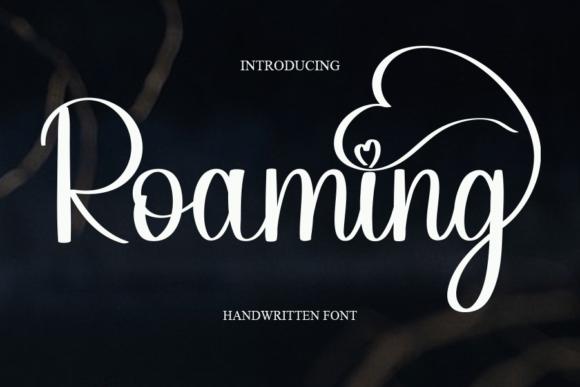
Roam freely through the world of typography with Roaming Font - the script font that effortlessly transforms your designs into works of art. Its meticulously crafted characters, inspired by classic handwritten styles, bring a touch of timeless elegance and sophistication to your projects.
Roaming Font is more than just a font; it's an invitation to unleash your creativity. Imagine the possibilities when you infuse your designs with the charm of a handwritten note. It's the perfect choice for personalizing wedding invitations, designing heartfelt greeting cards, or creating visually striking logos that exude class and professionalism.
The beauty of Roaming Font lies in its versatility. It seamlessly blends with both modern and traditional design aesthetics. Use it to add a personal touch to your social media posts, elevate the appeal of marketing brochures, or create stunning presentations that leave a lasting impression.
And with Roaming Font, numbers have never looked so good. Its bold, eye-catching numerals are guaranteed to make a statement. Highlight important data, emphasize key statistics, or create captivating infographics that demand attention.
So, embark on a typographic adventure with Roaming Font - the script font designed to inspire and empower your creative spirit. Download it today and elevate your designs to new heights!